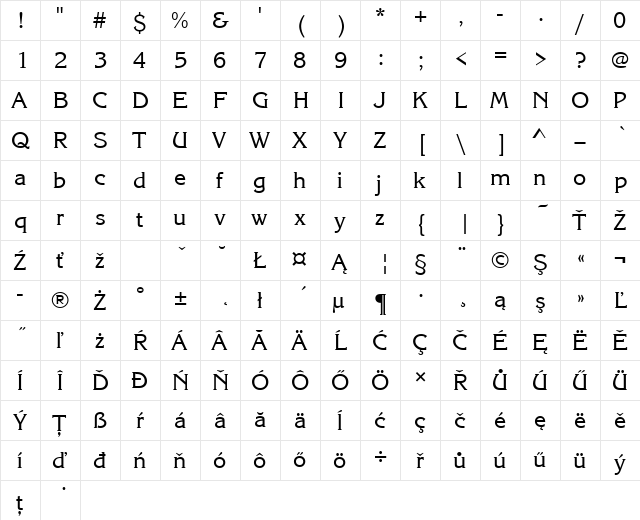
KorinnaItcTEE Regular Font Preview
KorinnaItcTEE Regular
Design Context for KorinnaItcTEE Typeface
KorinnaItcTEE offers clean, dependable letterforms without strong stylistic allegiance, making it a practical choice for designers who need flexibility.